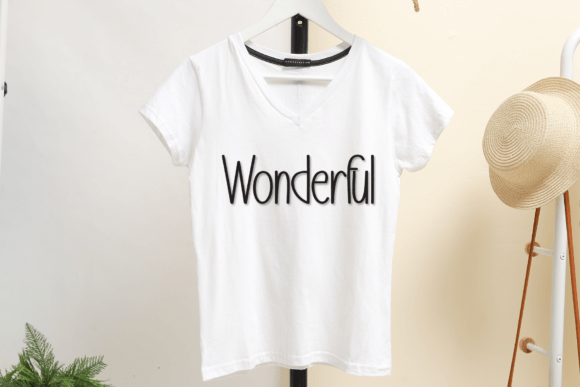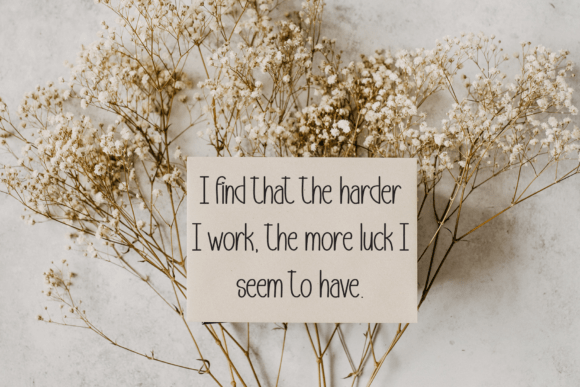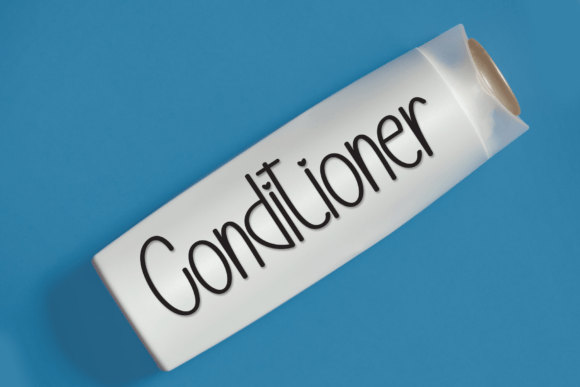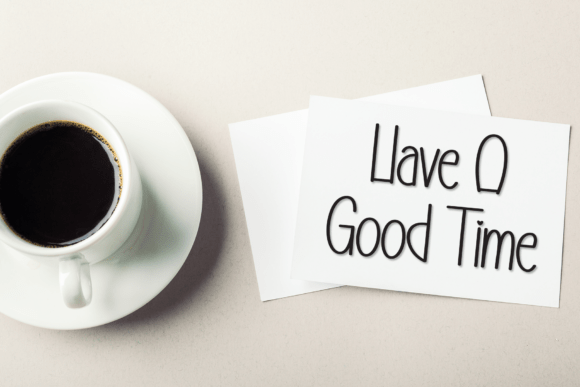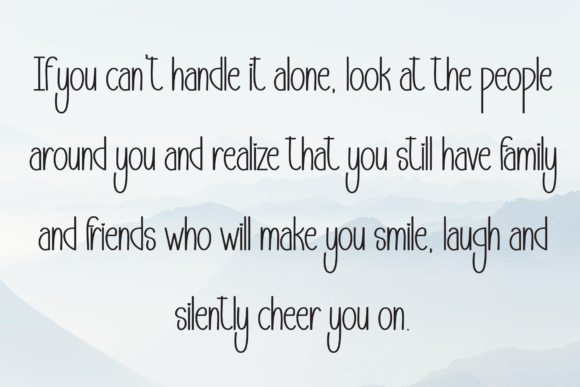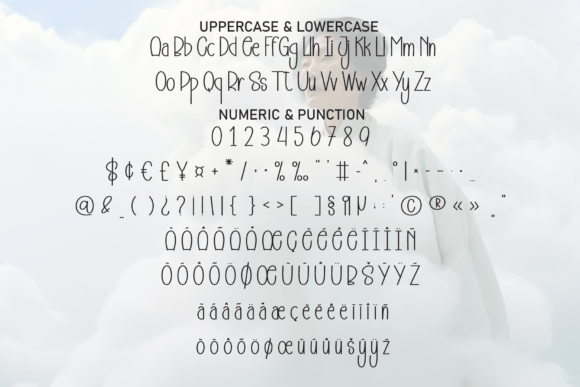
Dreaming Font: Add a Touch of Whimsy to Your Designs
Are you tired of using the same old fonts in your designs? Look no further than the Dreaming Font, a charming and affable handwritten display font that’s perfect for adding a splash of fun to your creations. With its intriguing aesthetic, this font is sure to infuse joy and lightheartedness into any project you use it for.
The Perfect Font for Wedding Invitations and Cards
One of the standout uses for the Dreaming Font is in crafting wedding invitations and cards. There’s something special about a wedding, and the font’s sweet and tranquil vibe makes it an ideal choice for this type of occasion. Whether you’re a designer creating wedding stationery for clients or a crafty person making your own wedding invitations, this font is sure to make your designs shine.
The Dreaming Font’s elegant yet playful feel makes it perfect for capturing the romance and joy of a wedding. Its flowing script and delicate lines evoke a sense of whimsy and wonder, adding a touch of magic to any wedding invitation or card. Plus, its readability ensures that your message will be clear and easy to understand, making it a practical choice as well as a beautiful one.
But Don’t Limit Yourself: Use Dreaming Font in All Your Design Projects
While the Dreaming Font is particularly well-suited to wedding invitations and cards, it’s by no means limited to just these uses. This versatile font can add a jovial twist to any design project that needs a splash of fun. From party invitations and flyers to branding and packaging, the Dreaming Font is a great choice for any project that needs a bit of personality.
Imagine using the Dreaming Font to create a playful logo for a children’s party planning business, or to add a touch of whimsy to a product label. The possibilities are endless, and the font’s flexibility ensures that it will work well in a wide range of design applications.
What Makes the Dreaming Font So Special?
So what sets the Dreaming Font apart from other fonts out there? For starters, its unique aesthetic is both tranquil and sweet, making it perfect for designs that need to evoke a sense of calm and serenity. At the same time, the font has a playful edge that adds a touch of fun and lightheartedness to any project.
The Dreaming Font is also highly legible, making it a practical choice for designs that need to communicate a clear message. Its flowing script and delicate lines make it easy to read, even at smaller sizes, ensuring that your message will get across clearly and effectively.
Tips for Using the Dreaming Font in Your Designs
So you’re excited to start using the Dreaming Font in your designs – but where do you start? Here are a few tips to get you started:
- Pair it with a bold font: The Dreaming Font is elegant and playful, but it can also get a bit lost if it’s not paired with a font that’s bold and eye-catching. Try pairing it with a sans-serif font or a bold script font to create a striking contrast.
- Use it for headings: The Dreaming Font is perfect for headings and titles, where its unique aesthetic can really shine. Try using it to create eye-catching headings that draw the reader in.
- Experiment with colors: The Dreaming Font looks great in a range of colors, from soft pastels to bold brights. Experiment with different colors to find the one that works best for your design.
The Dreaming Font is a charming and affable handwritten display font that’s perfect for adding a touch of whimsy to your designs. With its intriguing aesthetic and tranquil vibe, it’s ideal for wedding invitations and cards – but it’s also versatile enough to use in a wide range of other design projects. Whether you’re a designer, a crafty person, or just someone who loves to create, the Dreaming Font is sure to become a favorite in your design toolkit.